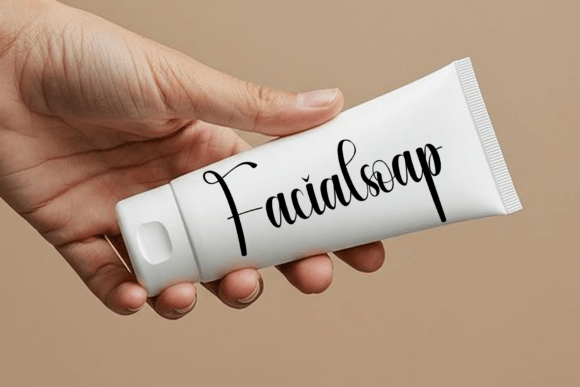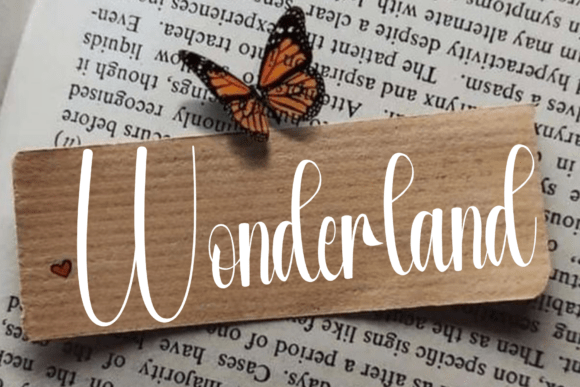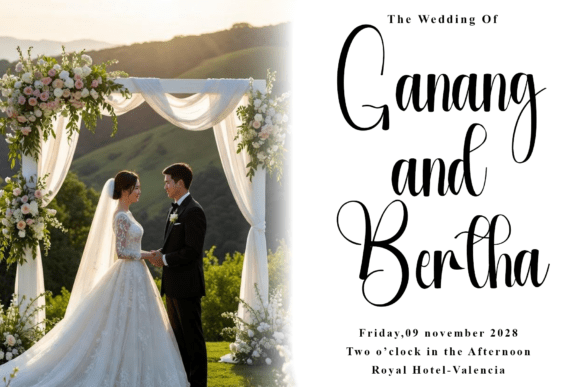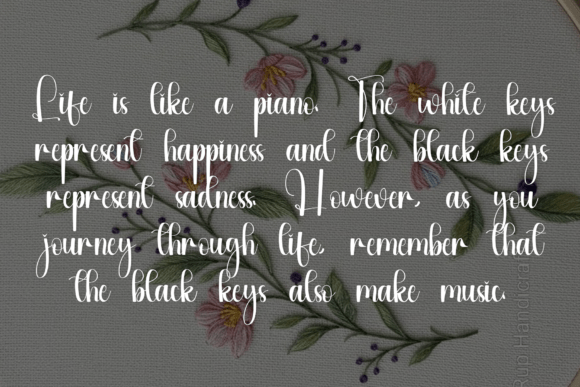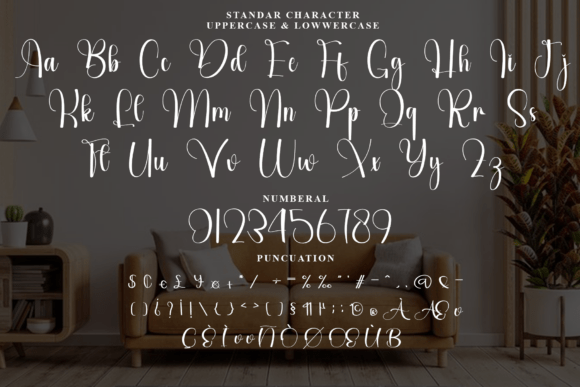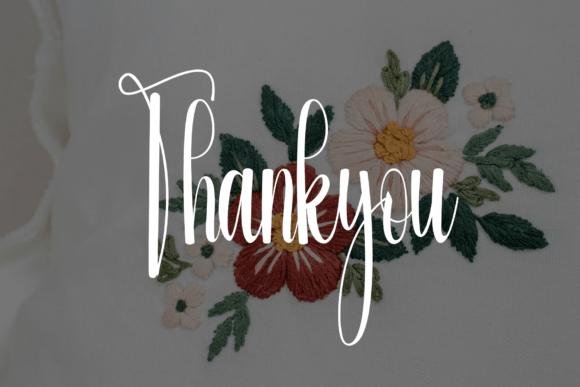
Introducing Embrolidery Font: A Breath of Fresh Air in Handwritten Collections
In the world of typography, fonts play a crucial role in conveying the tone and personality of a brand or design. For designers and crafters looking for a unique and professional handwritten font, Embrolidery is an excellent choice. This modern font is designed to evoke a sense of clarity and crisp elegance, making it perfect for various design applications.
The Characteristics of Embrolidery Font
Embrolidery Font boasts tall, thin strokes with a subtle, airy slant, giving it a refined aesthetic that feels as fresh as a mountain breeze. Its clean and approachable style makes it an ideal choice for travel photography, branding for outdoor gear, and sophisticated web design. The font’s unique characteristics include:
- Tall and thin strokes, providing a sense of elegance and sophistication
- Subtle, airy slant, giving the font a fresh and airy feel
- Clean and approachable style, making it perfect for a wide range of design applications
Design Applications for Embrolidery Font
Embrolidery Font is a versatile font that can be used in various design applications, including:
- Travel Photography: The font’s clean and elegant style makes it perfect for travel photography, adding a touch of sophistication to your images.
- Branding for Outdoor Gear: Embrolidery Font is an excellent choice for outdoor gear branding, conveying a sense of adventure and freedom.
- Sophisticated Web Design: The font’s refined aesthetic makes it ideal for sophisticated web design, adding a touch of elegance to your website.
Why Choose Embrolidery Font?
Embrolidery Font is a unique and professional entry into the modern handwritten collection, offering several benefits, including:
- Uniqueness: Embrolidery Font stands out from other fonts, providing a distinctive look that sets your design apart.
- Legibility: The font’s clean and elegant style ensures excellent legibility, making it perfect for body text and headlines.
- Versatility: Embrolidery Font can be used in various design applications, from print to digital media.
Tips for Using Embrolidery Font
To get the most out of Embrolidery Font, consider the following tips:
- Pair with contrasting fonts: Combine Embrolidery Font with contrasting fonts to create visual interest and hierarchy.
- Use for headlines and titles: The font’s elegant style makes it perfect for headlines and titles, adding a touch of sophistication to your design.
- Experiment with colors: Embrolidery Font looks great in various colors, so don’t be afraid to experiment and find the perfect hue for your design.
Embrolidery Font is a unique and professional handwritten font that offers a refined aesthetic, making it perfect for designers and crafters looking for a fresh and elegant look. Its versatility, legibility, and uniqueness make it an excellent choice for various design applications, from travel photography to sophisticated web design. With its tall, thin strokes and subtle, airy slant, Embrolidery Font is sure to add a touch of sophistication to your design.